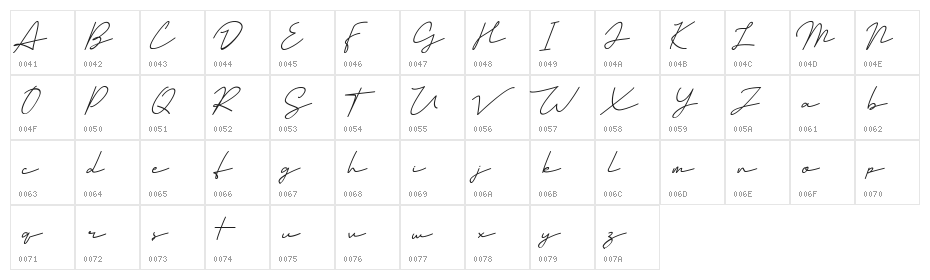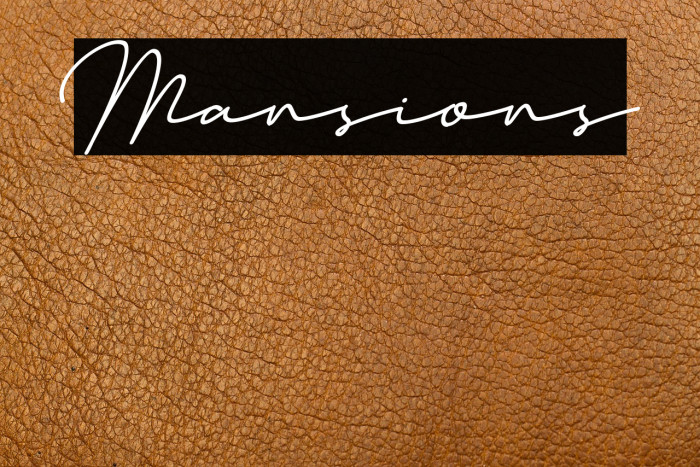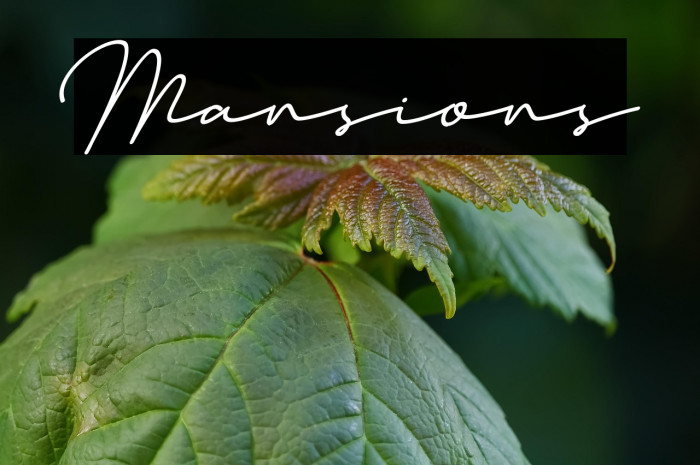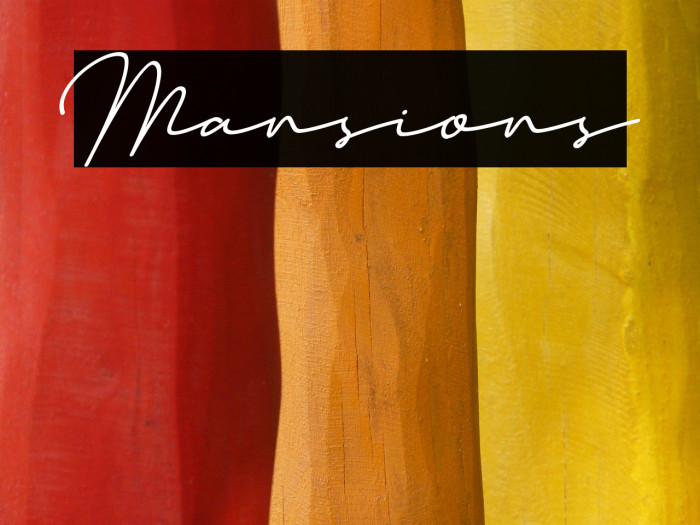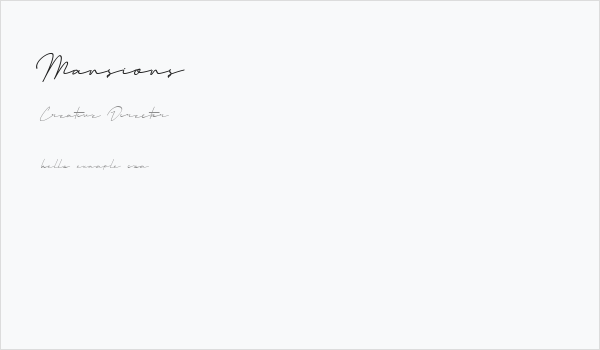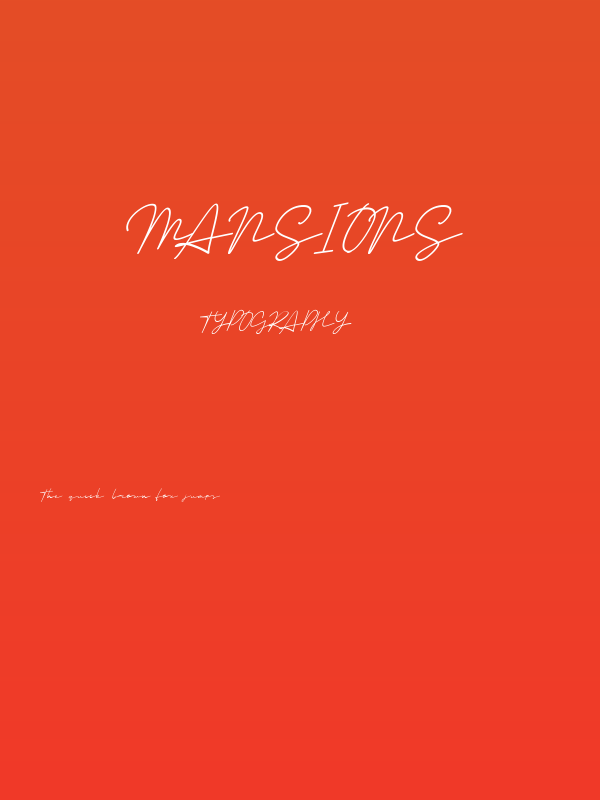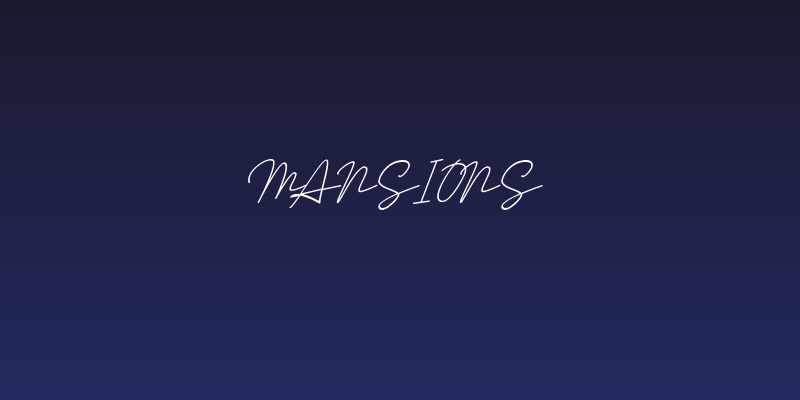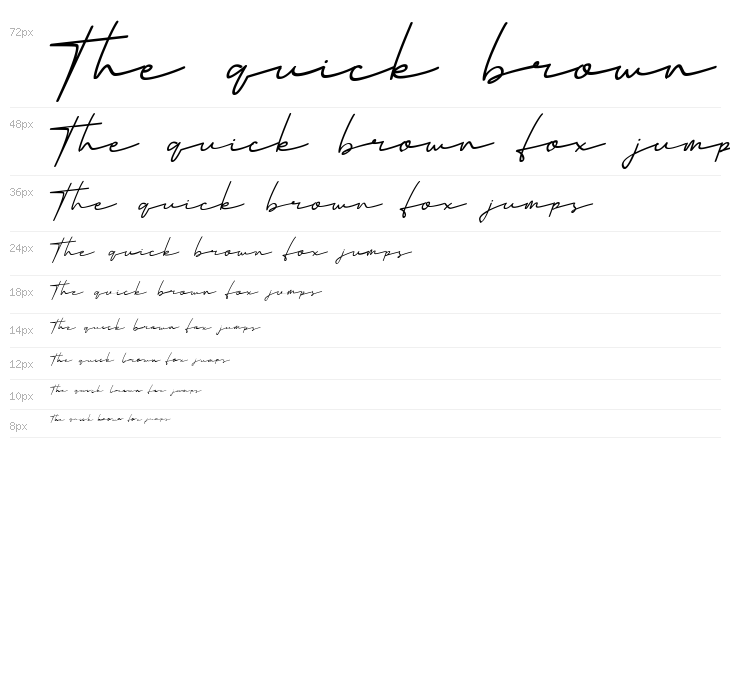
Mansions Font
Mansions Description
This font features a flowing, cursive style that mimics elegant handwriting. The letters are connected, creating a seamless and continuous script that exudes sophistication and grace. The strokes are smooth and fluid, with a consistent thickness that maintains readability while adding a touch of personal flair. The uppercase letters are slightly larger and more pronounced, providing a nice contrast to the more delicate lowercase letters. This font is perfect for projects that require a personal touch or a sense of elegance, such as invitations, greeting cards, or branding materials.
| Use Case | Logos, Invitations, Personal branding |
| Proposed Projects | Ideal for wedding invitations, personal branding, greeting cards, and elegant stationery. |